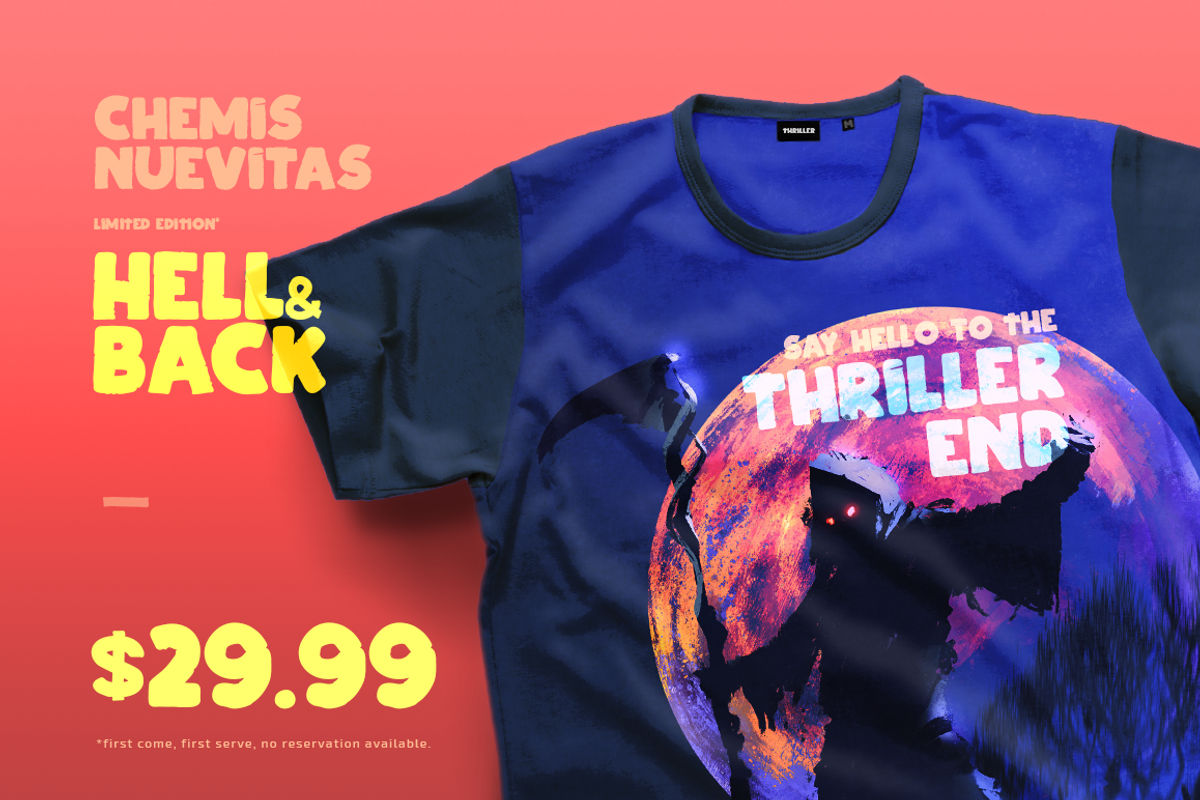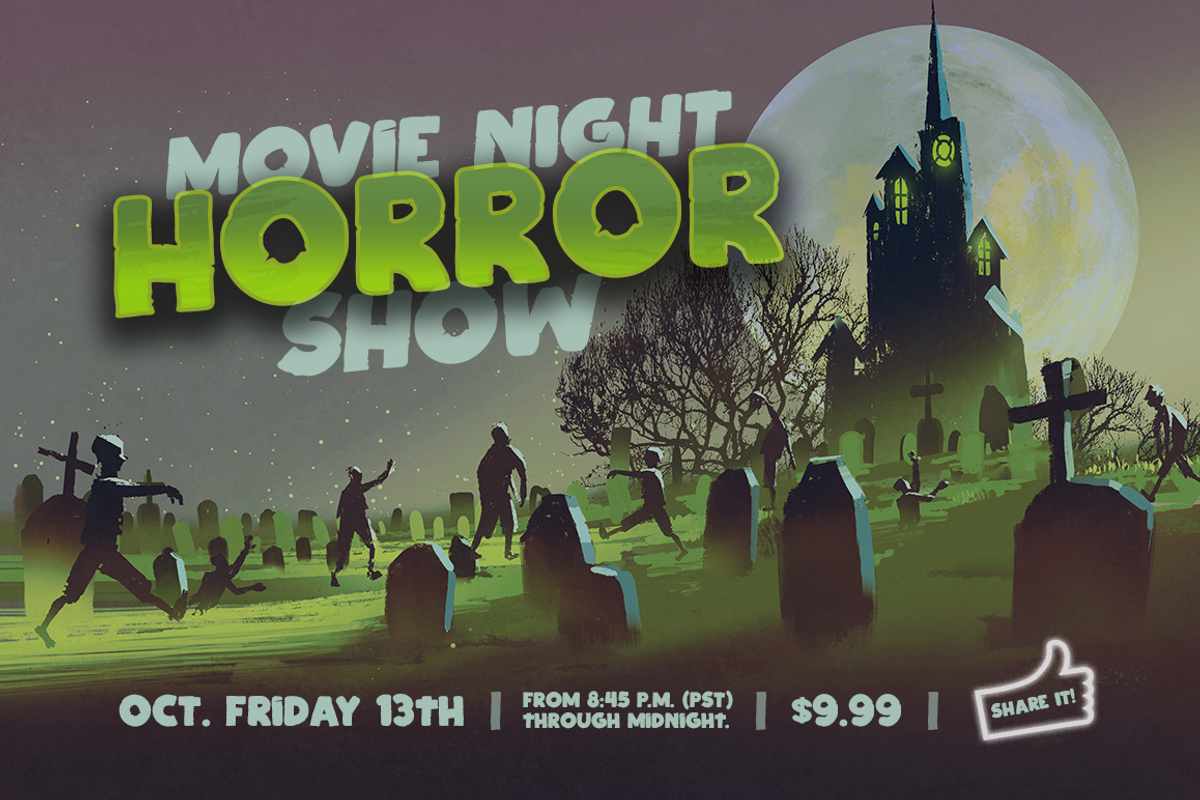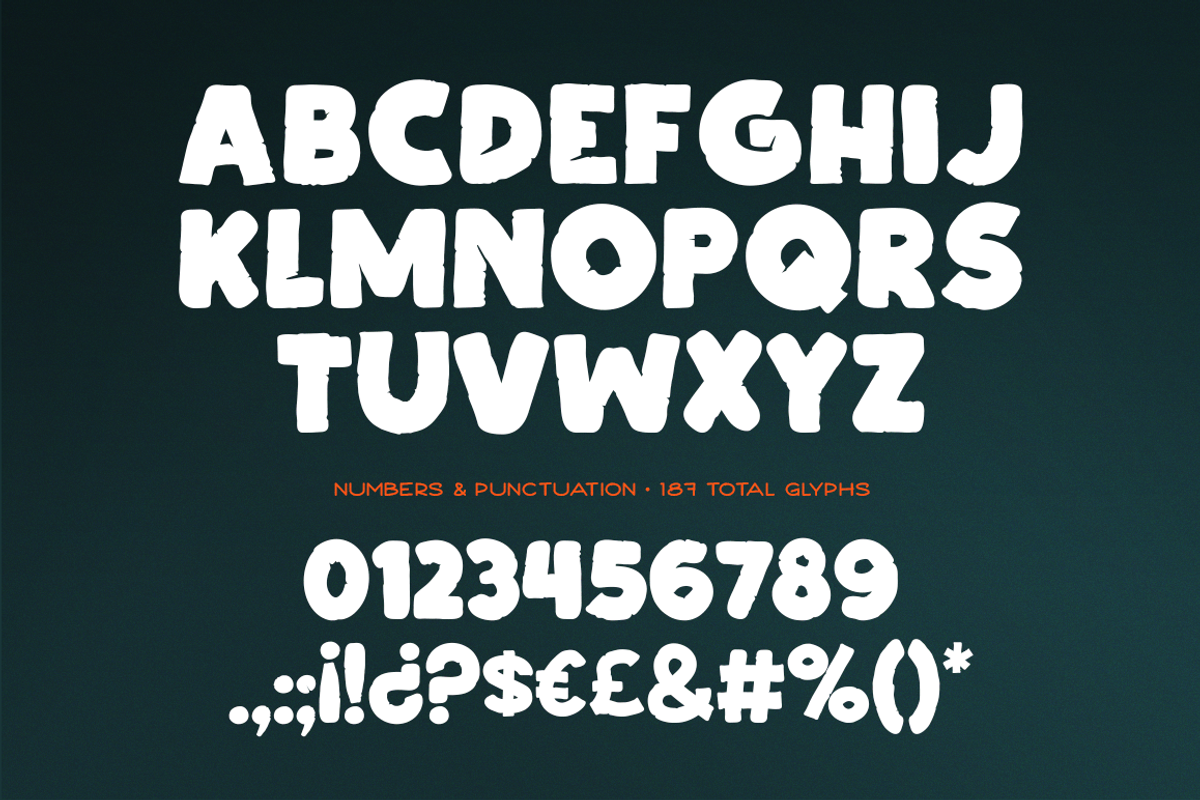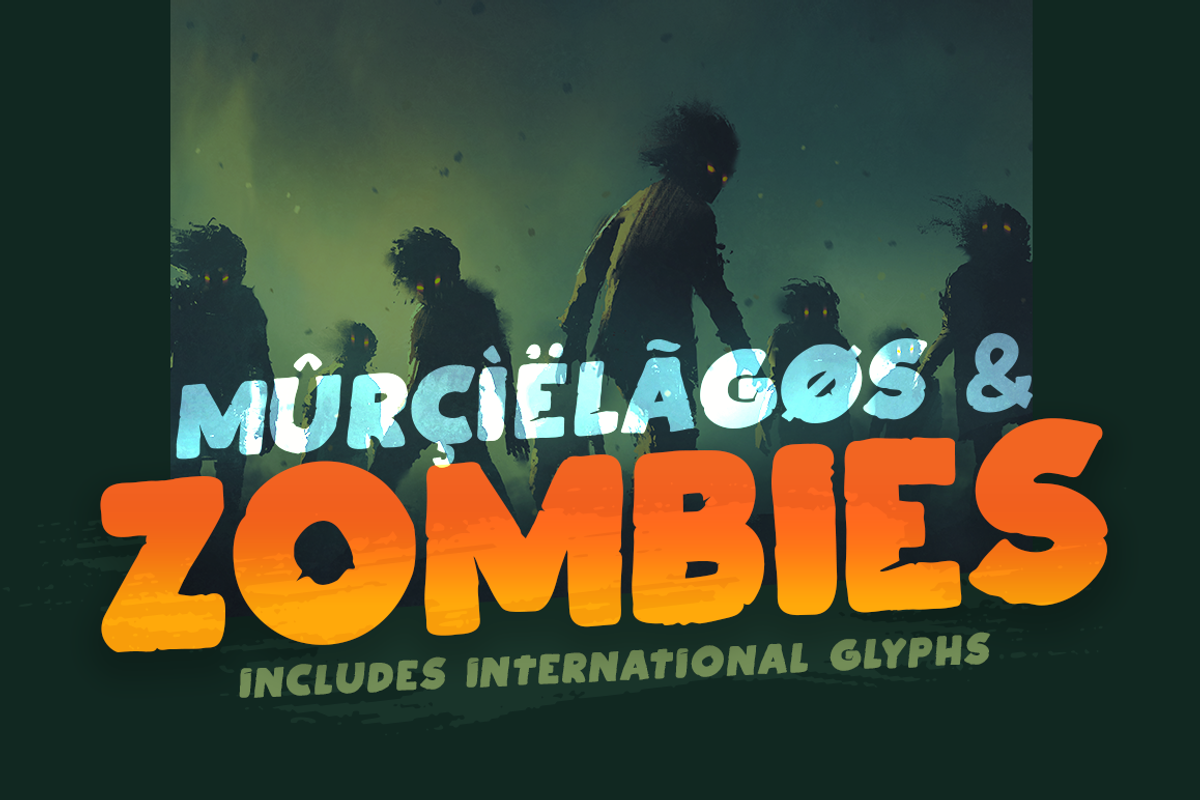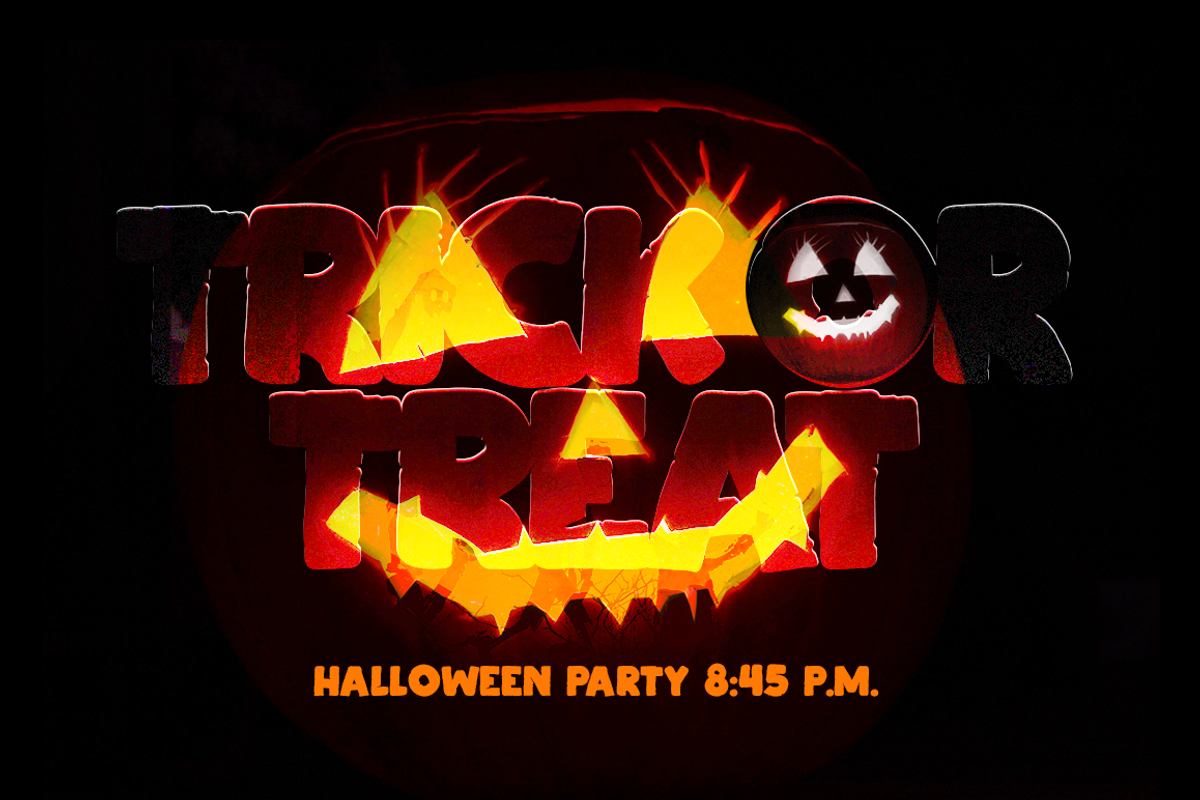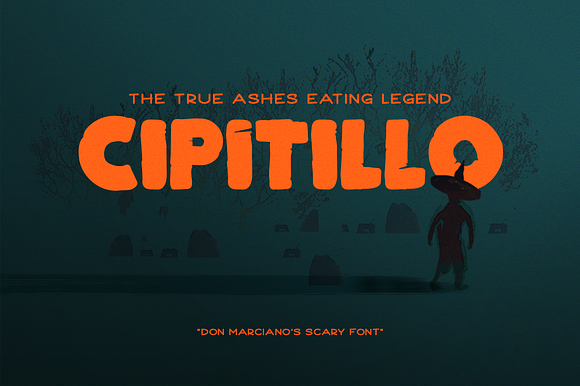
Cipitillo Scary Font
Cipitillo is a spooky style kind of font, inspired by the local scary tales from Salvadoran folklore, the legendary character “El Cipitío” (Nahuatl word for child) tells the story of a small boy born from a forbidden relationship, and it said that appears before those who go in that same path, with its signature big hat, big belly and back to front feet, comes a bold and distressed font that is the true eating ashes legend.